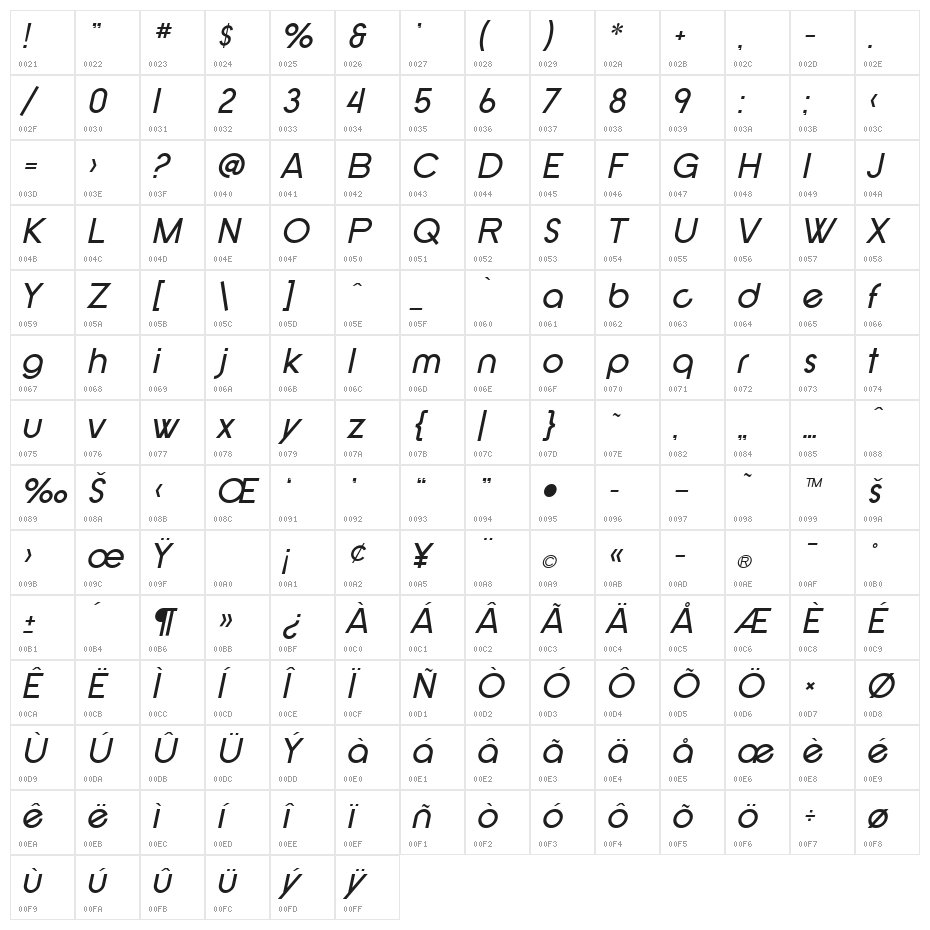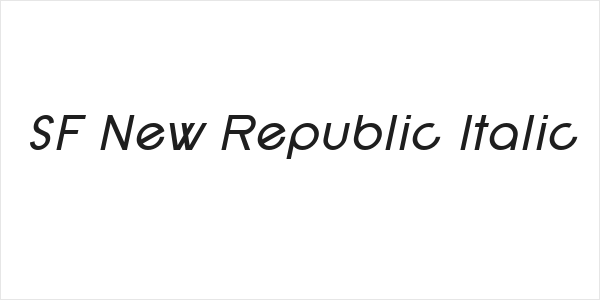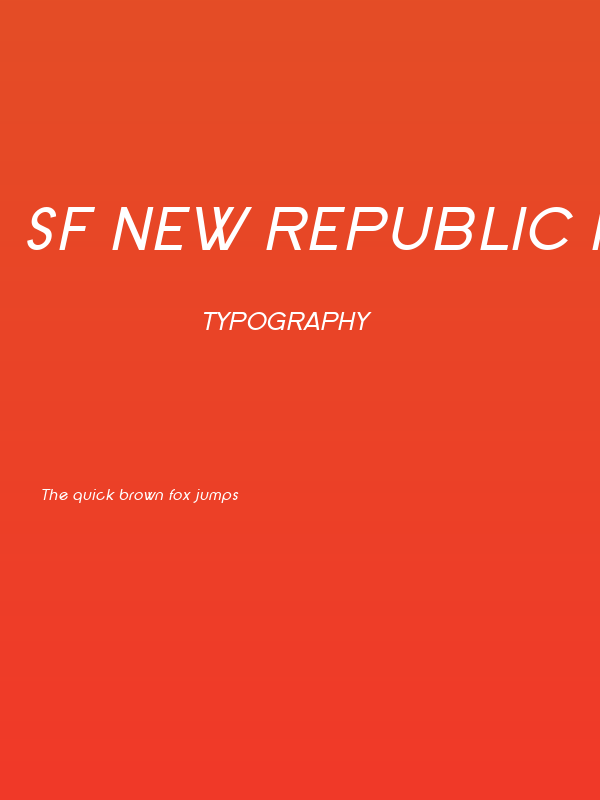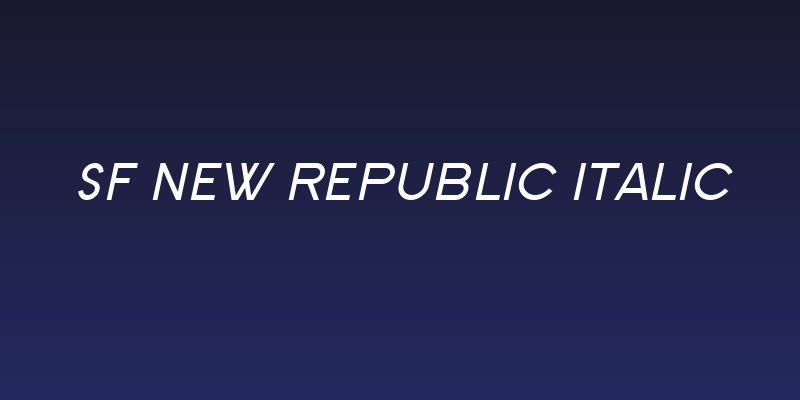
SF New Republic Italic Font
SF New Republic Italic Description
This font features a sleek, modern design with a distinct italic slant, giving it a dynamic and forward-leaning appearance. The characters are clean and smooth, with a consistent stroke width that maintains readability while adding a touch of elegance. The uppercase letters are bold and commanding, while the lowercase letters are rounded and approachable. The numerals are clear and well-proportioned, making them suitable for a variety of uses. Special characters are included, maintaining the font's cohesive style. Overall, this font combines modern aesthetics with functionality, making it versatile for various design projects.
| Proposed Projects | Ideal for branding, advertising, and editorial design where a modern and elegant touch is desired. |